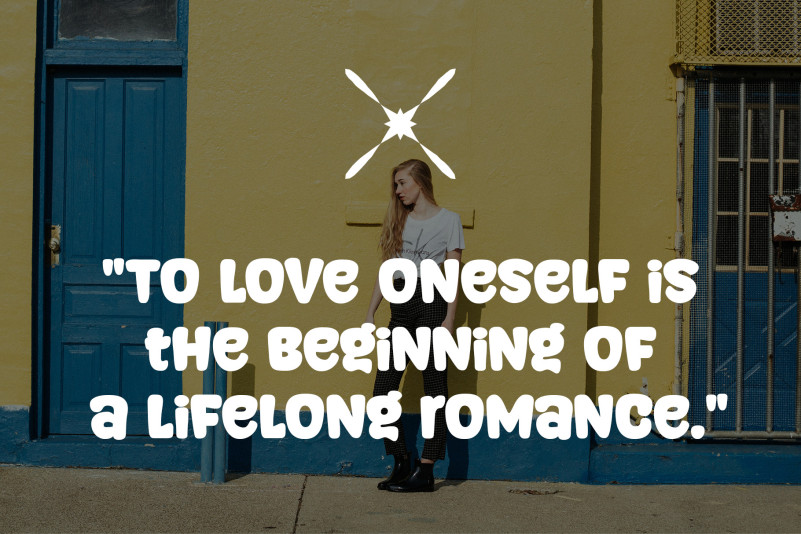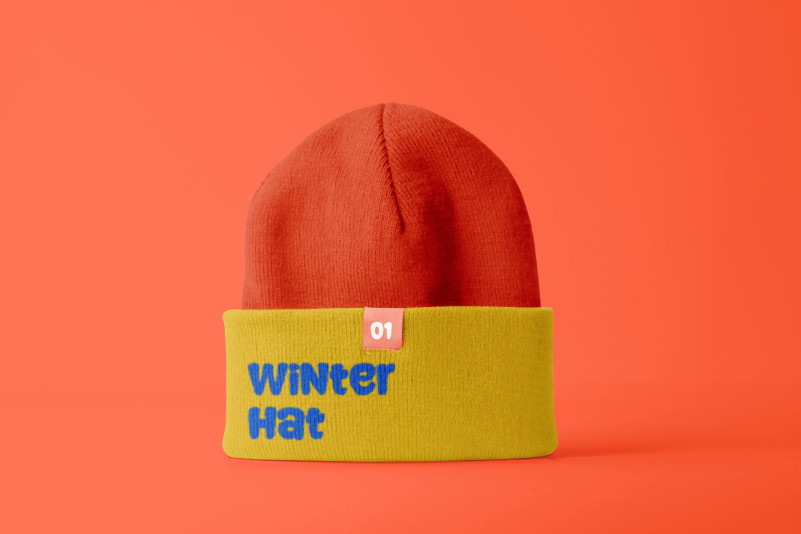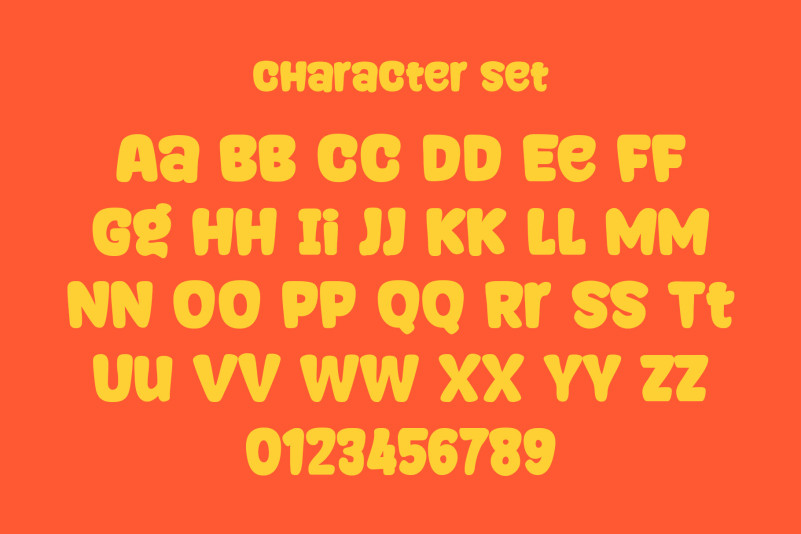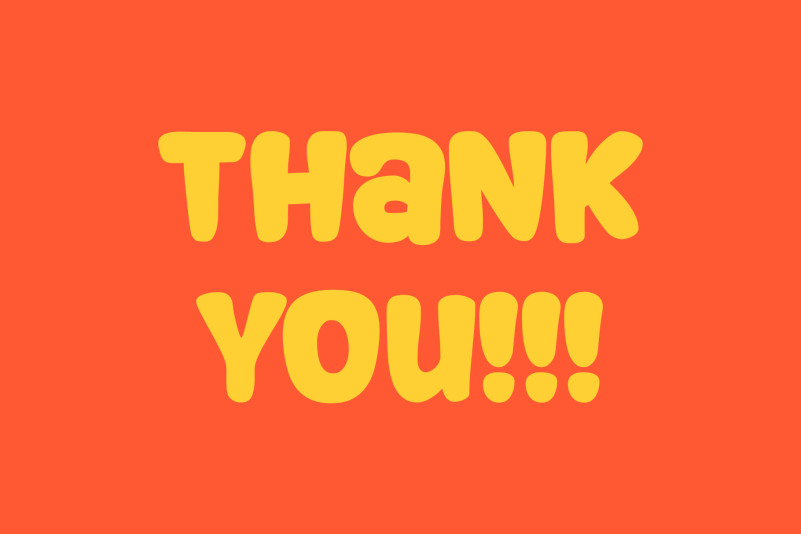
Singly Linked Display Font is a chunky, comic, and cartoon handwritten font. With its neat and joyful personality, this font will enhance any project you wish to create!